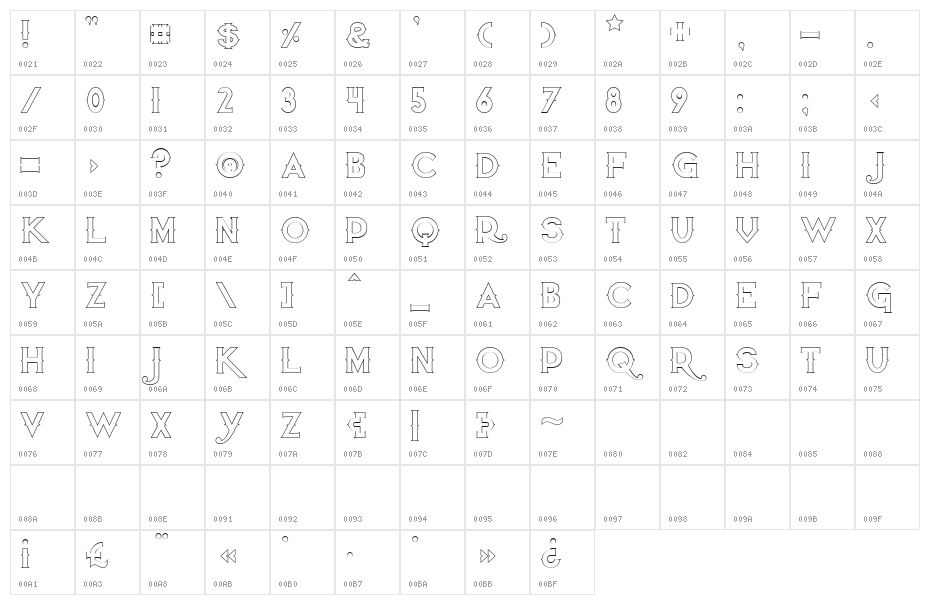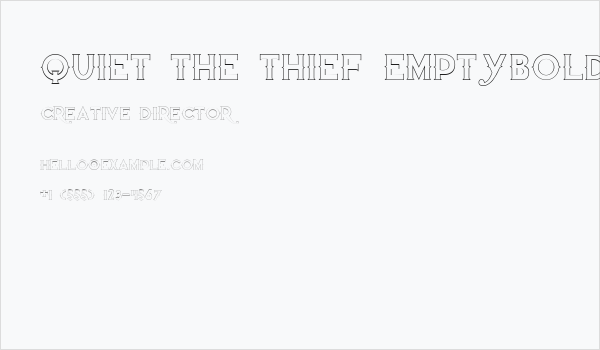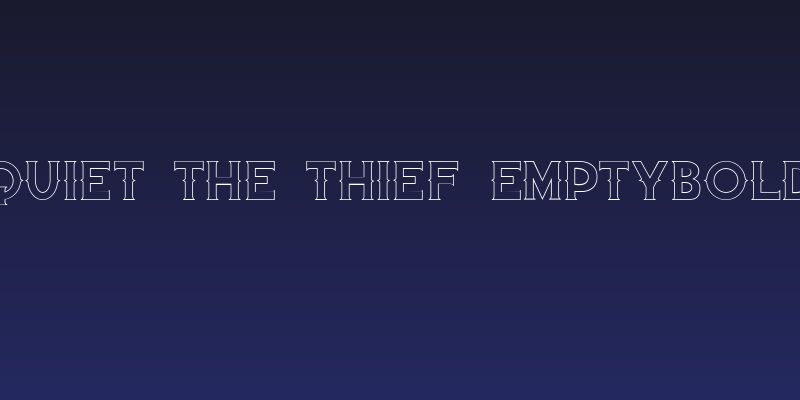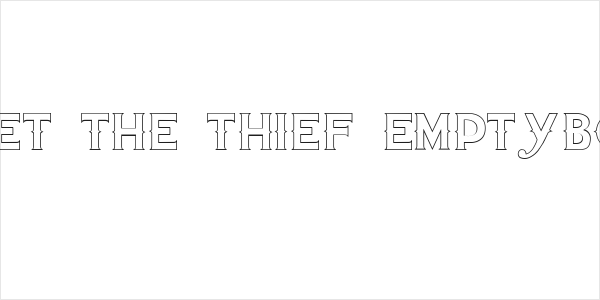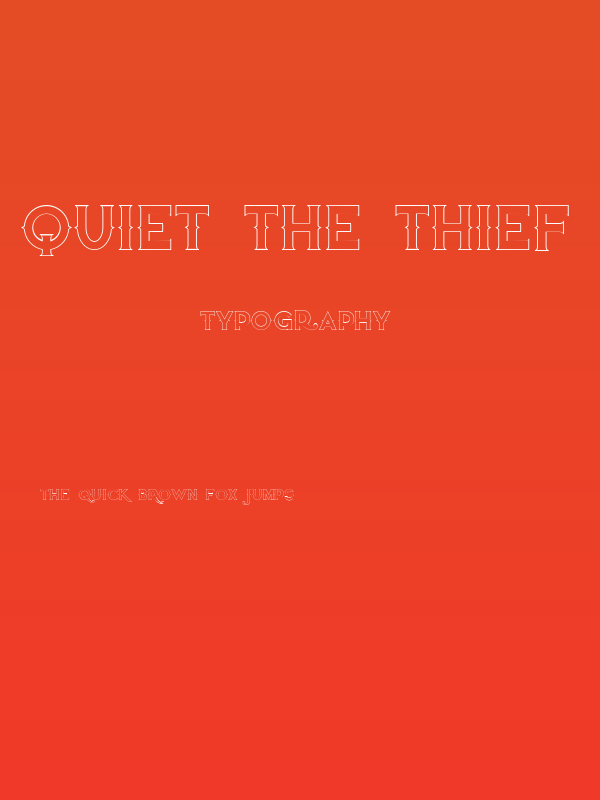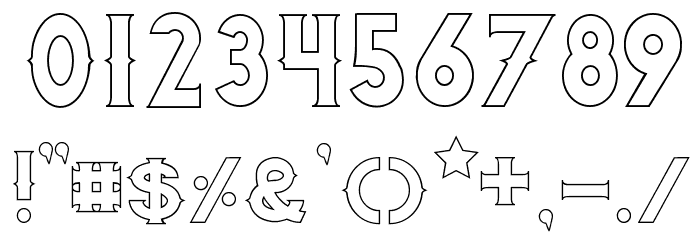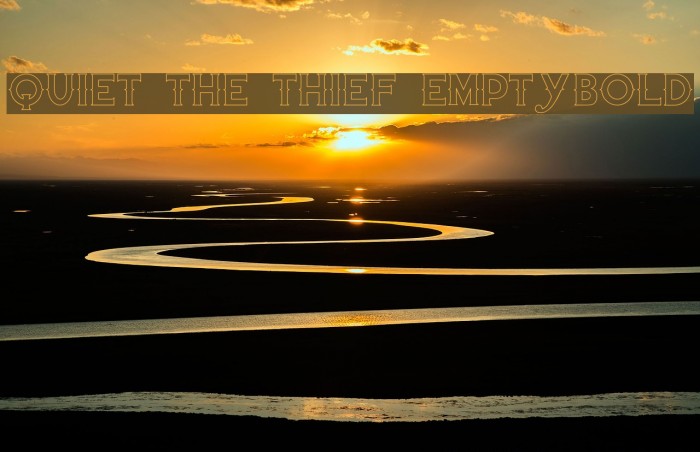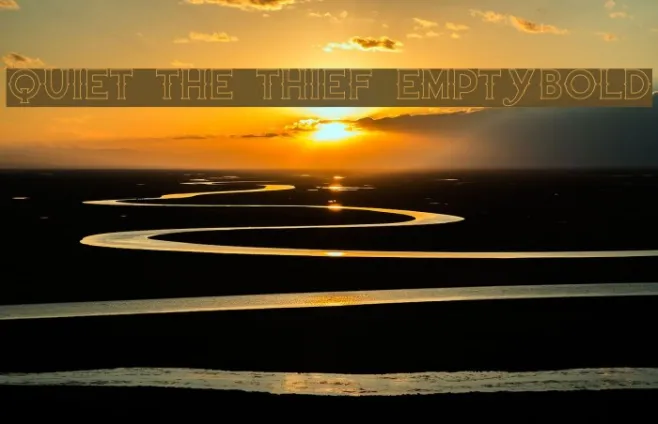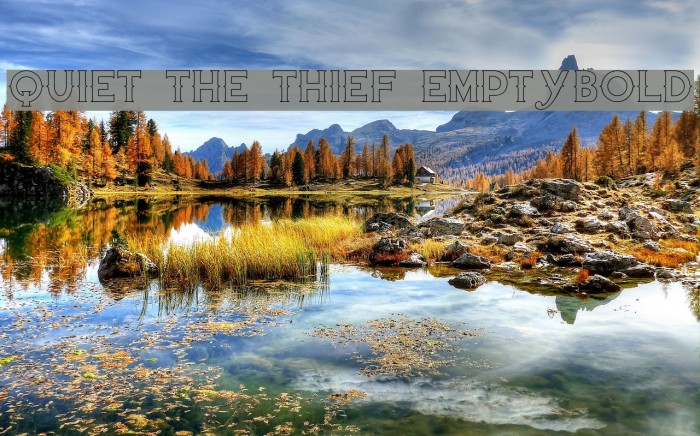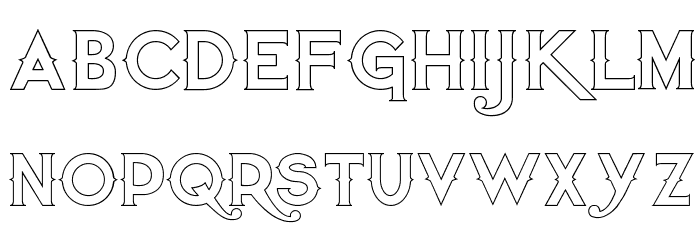
Quiet the Thief EmptyBold Font
Quiet the Thief EmptyBold Description
This font features a bold, decorative style with a hollow interior, creating a striking outline effect. The uppercase letters are characterized by sharp, angular serifs and a geometric structure, giving them a modern yet classic appearance. The lowercase letters maintain the same stylistic elements, ensuring consistency throughout. Numbers and special characters are designed to match the bold and decorative theme, with unique shapes that add to the overall aesthetic. The font's design is both eye-catching and versatile, suitable for various creative applications.
| Proposed Projects | Ideal for headlines, posters, branding, and any project requiring a bold, eye-catching typeface. |